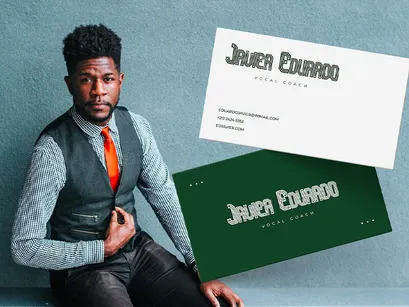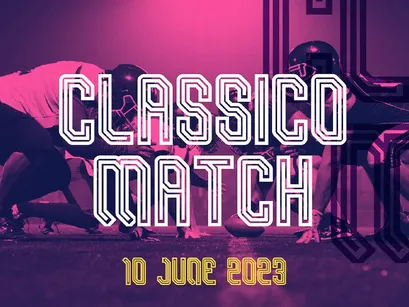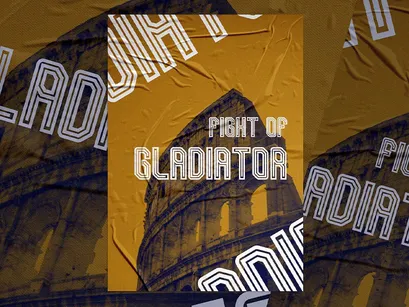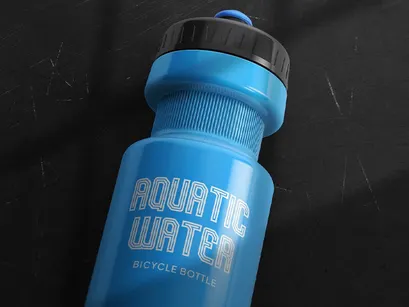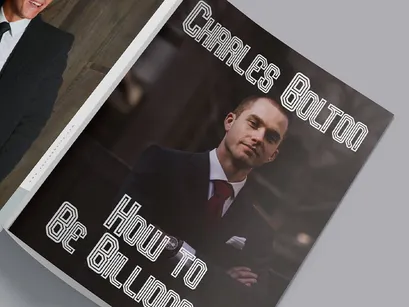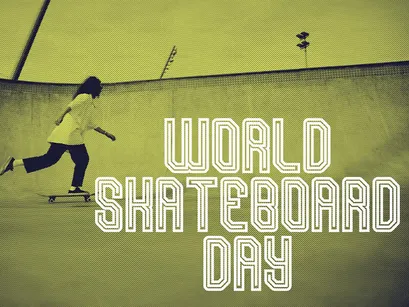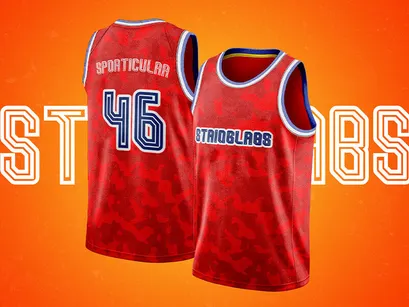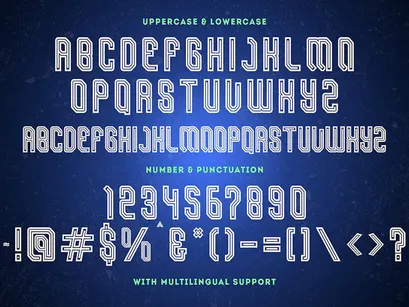
Sporticular - Sporty Display Font
Sporticular
Introducing Sporticular - Sporty Display Font
Sporticular is a sporty and modern display font. This playfully conceptual typeface font will look truly outstanding in a wide range of contexts. This font is very suitable for your any sports needs.
• Uppercase and Lowercase letters
• Numbering and Punctuations
• Multilingual Support